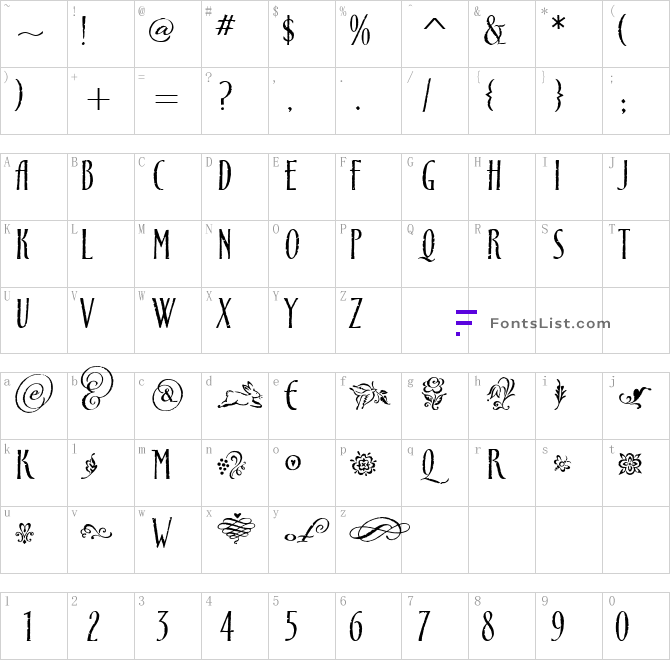
- Font Name:CancioneITC TT
CancioneITC-TT.ttf is a very beautiful artistic font, CancioneITC-TT.ttf is widely used in the design and printing of various books and pictures,CancioneITC-TT.ttf has a strong visual impact,CancioneITC-TT.ttf is a commonly used font in newspapers, magazines and books, and is used in posters, e-commerce Poster design, store design, logo design, font design and other fields.CancioneITC-TT.